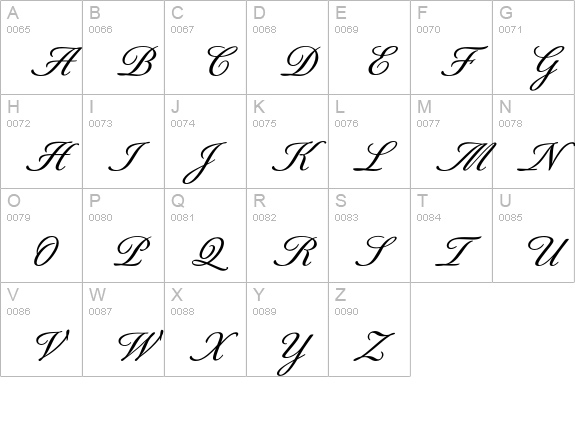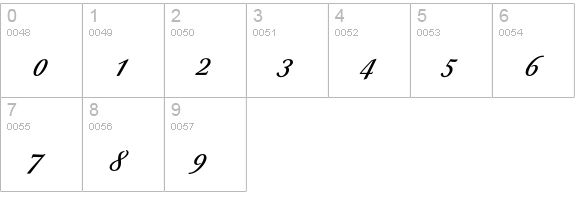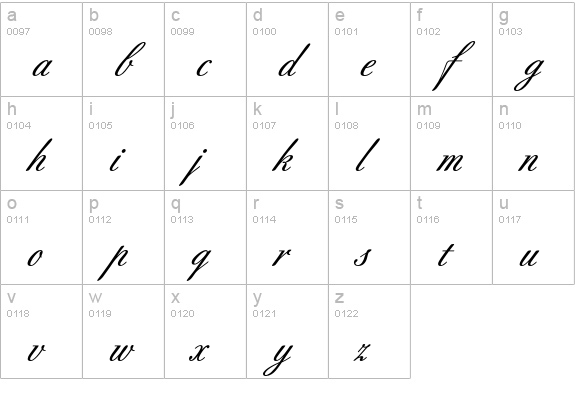
Berthold Script BQ Medium Font Details
Berthold Script BQ Medium is a balanced, medium-weight variant in the Berthold typeface family \xE2\x80\x94 well suited to sub-headlines, navigation, and balanced editorial work.
Berthold Script BQ Medium font is a timeless and elegant script typeface that exudes sophistication and charm. Its graceful curves and flowing lines make it perfect for adding a touch of class to any design project. Whether you're creating wedding invitations, branding materials, or elegant signage, Berthold Script BQ Medium font will elevate your work to new heights. The medium weight of this font strikes the perfect balance between being substantial and delicate, making it versatile and easy to read. Its classic yet modern aesthetic makes it a popular choice for a wide range of design applications. Best of all, Berthold Script BQ Medium font is freely available to download at FontsMarket.com. This means you can easily access this beautiful font and incorporate it into your projects without any additional cost. Don't miss out on the opportunity to enhance your designs with this exquisite typeface. Download Berthold Script BQ Medium font today and elevate your creative work to the next level.